Fonts are an indispensable part of any logo design project. Graphic designers would agree that every font has a personality of its own and the right font can work wonders for your brand!
However, picking a font that aligns with the theme of your brand and is free might be difficult!
To solve this problem, I researched and tried out hundreds of copyright free fonts and came out with this article.
In this article, I’m going to present 23 Best Free Fonts for Logos and Designs. Yes, you heard it right! These logos are totally FREE for commercial use, which means you can freely use it in your logos, designs, and other client projects.
So, are you ready to discover some creative fonts for your logos? Let’s begin!
23 Best Free Fonts for Logos and Designs
1. Anchor Jack
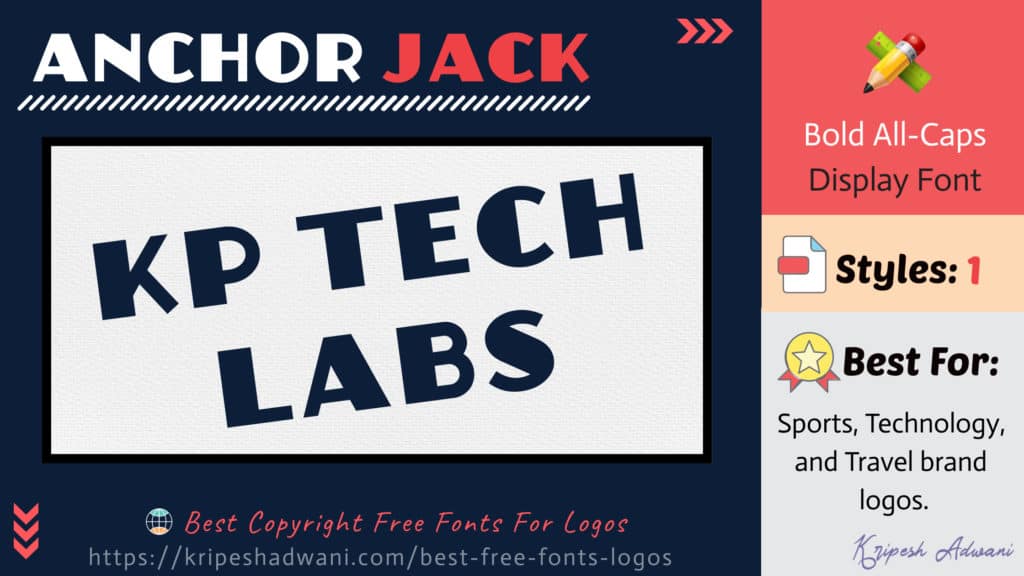
Anchor Jack is a bold all-caps display font inspired by Art Deco. This font would work really well with Sports, Technology, and Travel brand logos.
2. Orbitron
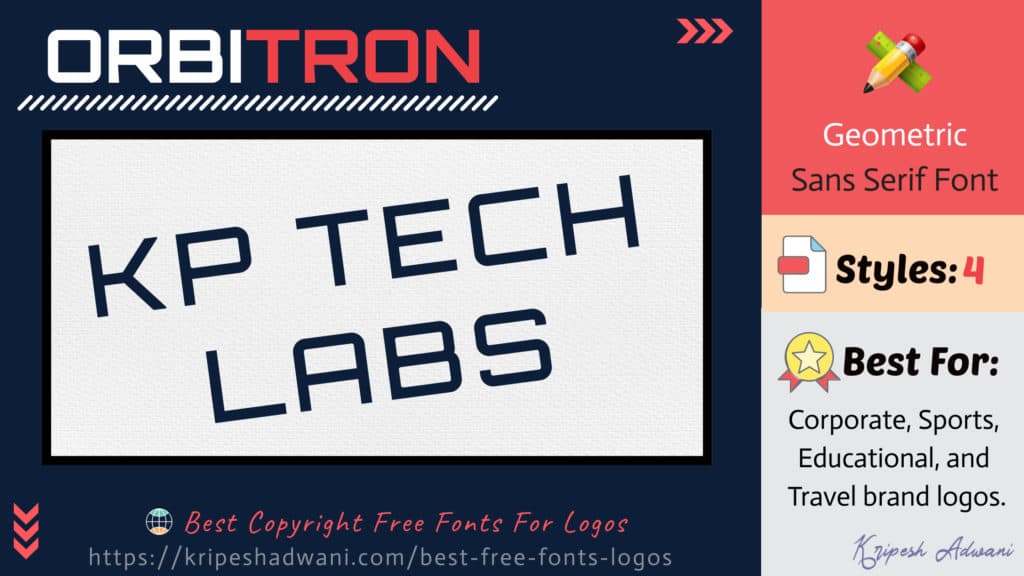
Orbitron is a geometric Sans Serif font with a futuristic vibe to it! It comes in four different weights, including light, medium, bold, and black!
This font is an excellent choice for Corporate, Education, Sports, and Travel brand logos.
3. Mohaw
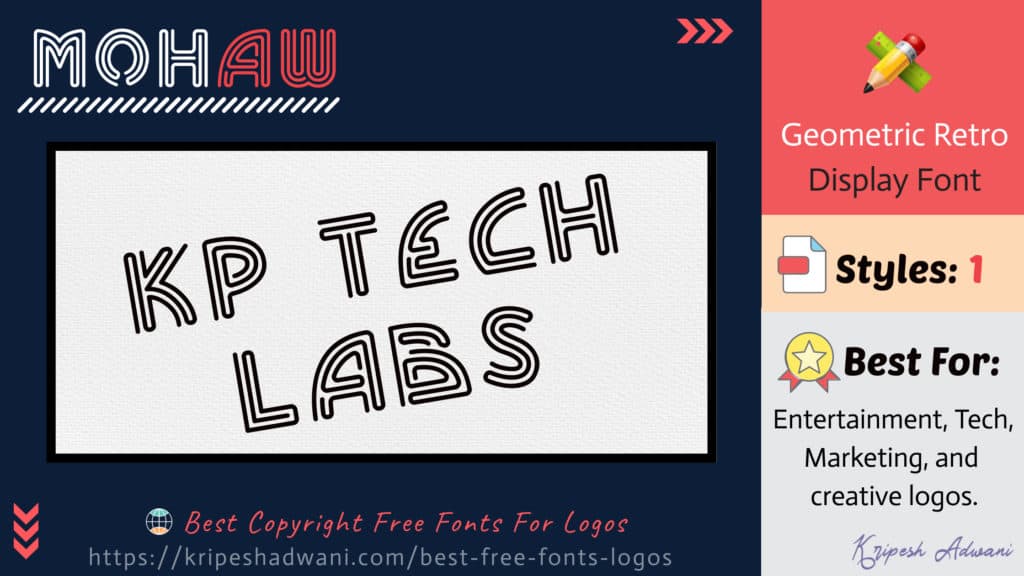
Mohaw is a geometric retro display font with smooth, flowing, straight lines inspired by the neon style. It is a super stylish font and can be a suitable option for Entertainment, Tech, Marketing, and similar creative logos.
4. Jaya Baru
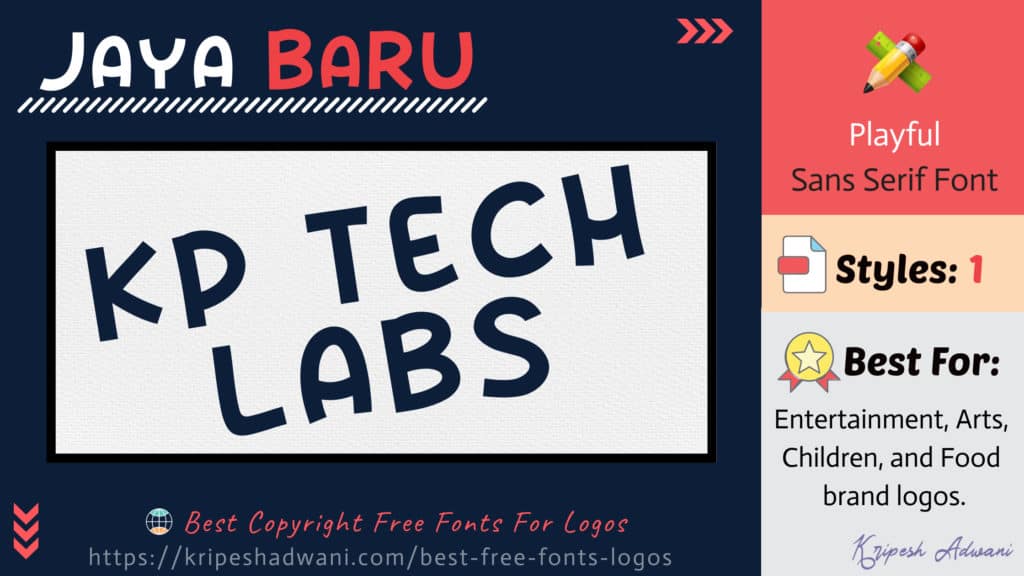
Jaya Baru is a playful and funny Sans Serif font. Its smooth curves give it an almost cartoonish look. This font would go really well with Entertainment, Arts, Children, and Food brand logos!
5. Tribeca
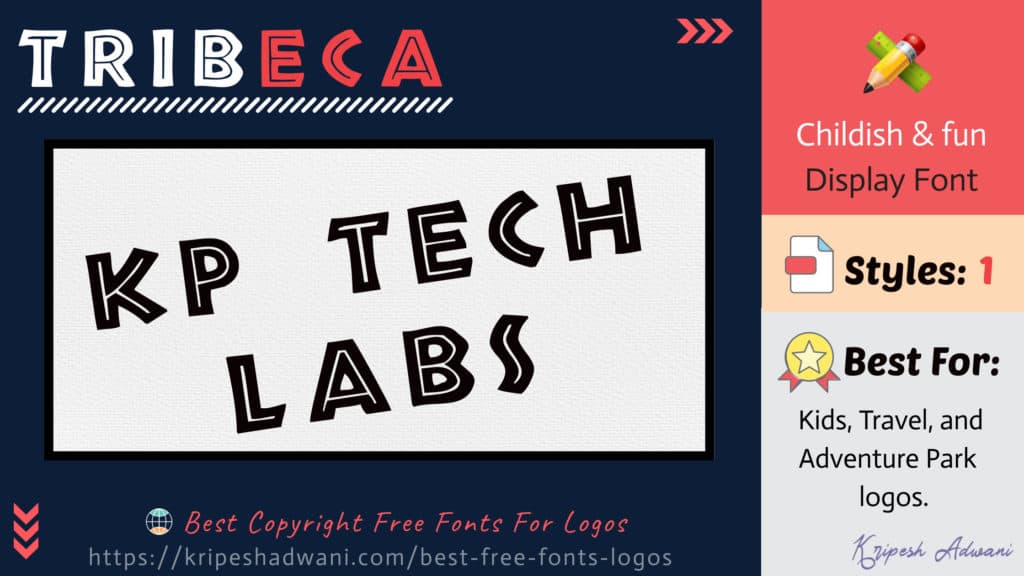
Tribeca is a childish and fun display font. It has bold white outlines, which give it a strong and confident vibe. It can be used on Kids, Travel, and Adventure Park logos.
6. Storm Gust
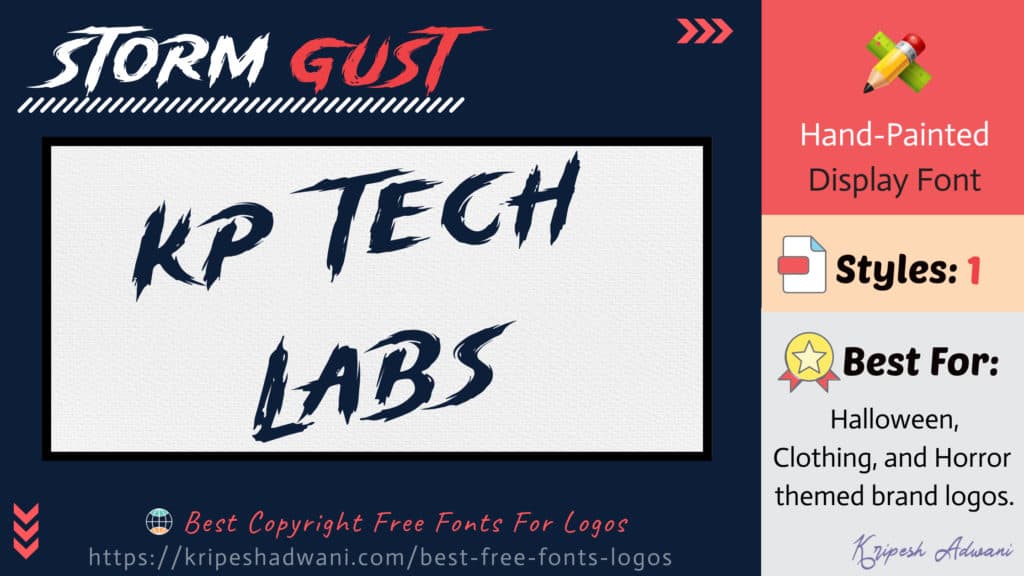
Storm gust is a horror-themed hand painted display font. Its rough strokes give it a bold and scary appearance. This font is great for Halloween, Clothing, and Horror-themed brand logos.
7. Isometretos
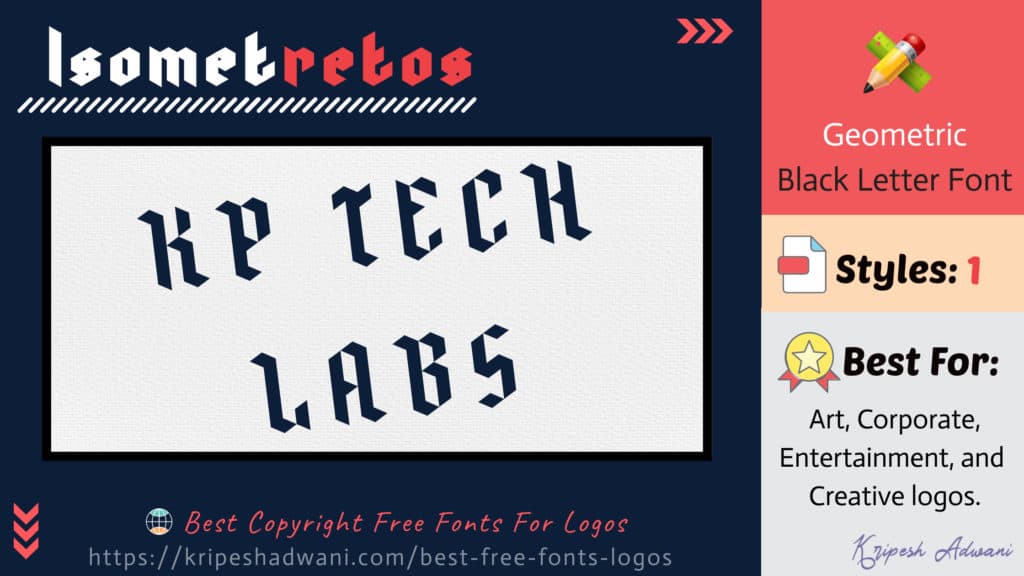
Isometretos is a geometric black-letter font which comprises triangles on a grid. It looks quite minimalistic and classy and comprises both upper and lowercase letters.
It can be used on Art, Corporate, Entertainment, and Creative logos.
8. Curely
Curely is a gorgeous all-caps script font in handwritten style. This font has a powerful girly feel and is best for Arts, Kids, and Fashion brand logos.
9. Luckiest Guy
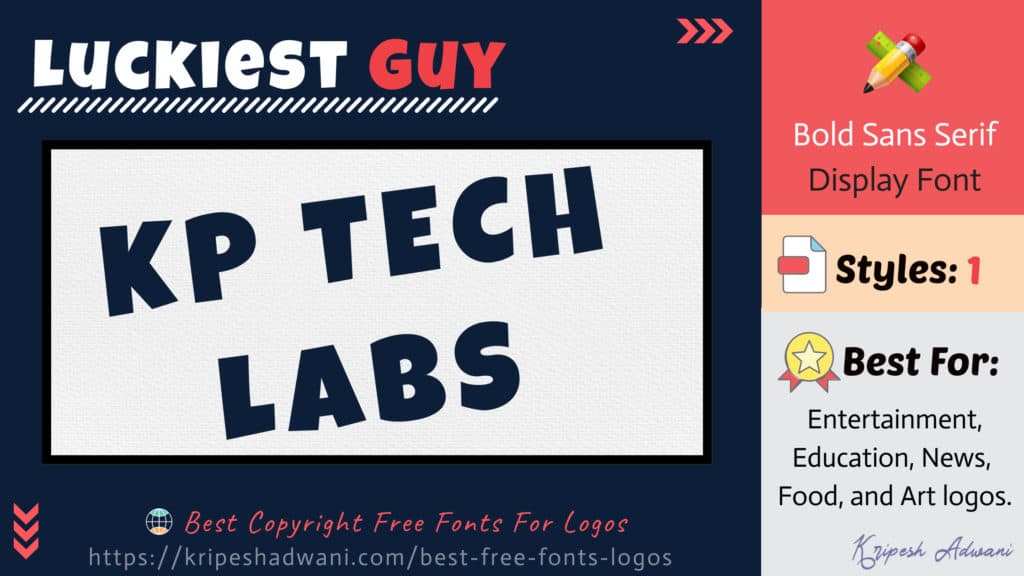
Luckiest Guy is a bold Sans Serif font with a friendly appeal. It is ideal for Entertainment, Education, News, Food, and Art logos.
10. Vanilla
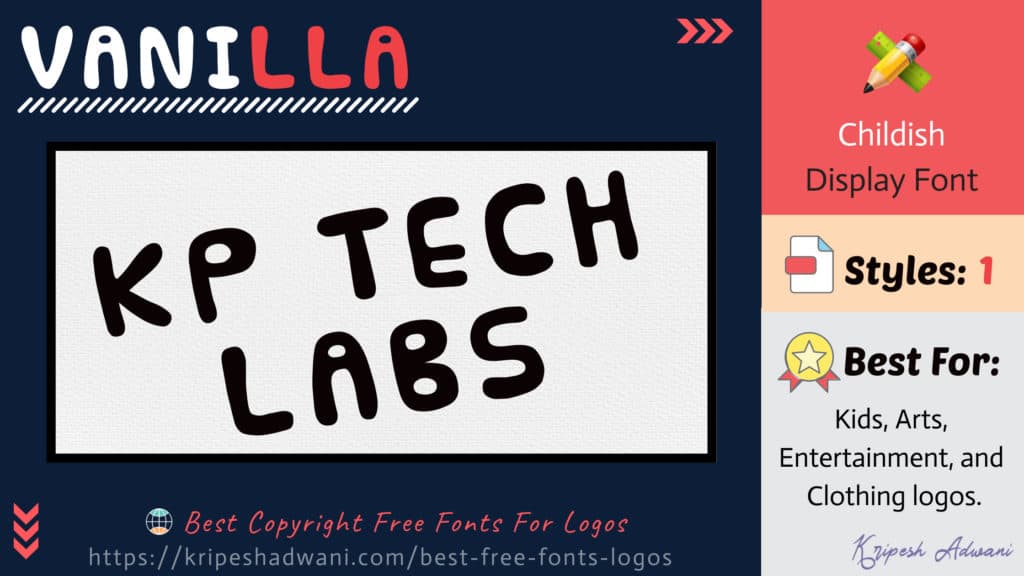
Vanilla is a cute and childish display font with smooth, wavy letters. It exudes a playful and carefree vibe associated with kids.
This font is best suited for Kids, Arts, Entertainment, and Clothing brand logos.
11. Capsaicin
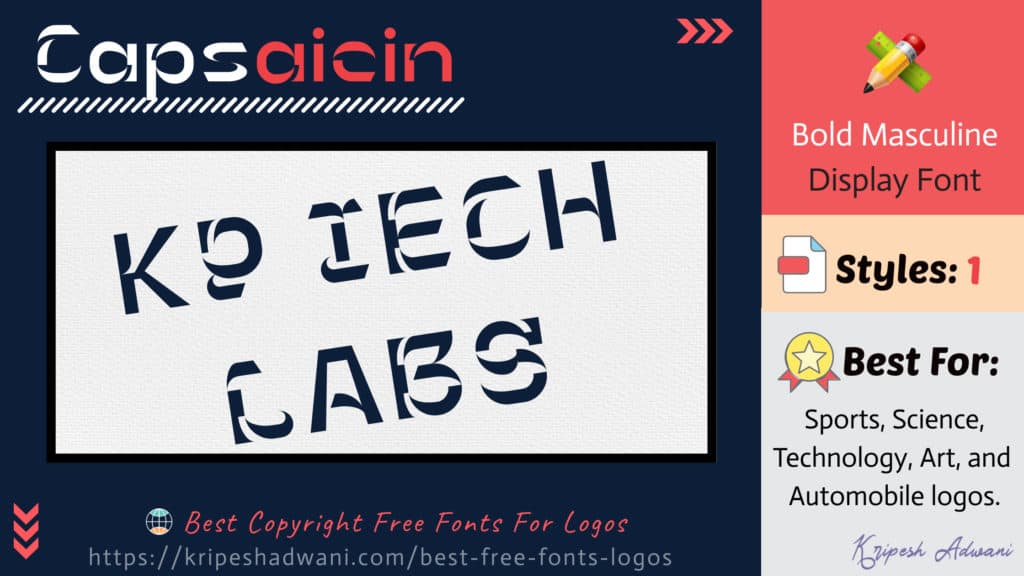
Capsaicin is a substance present in chili that causes a burning sensation on the skin. This font is a modern take on the same with sharp edges and a wild look! It is ideal for Sports, Science, Technology, Art, and Automobile logos.
- Designer: Micheal Xing
12. Strings
Color Tube is a beautiful handwritten font with smooth and seamless curves. This font is best for Fashion, Art, Handbags, and Jewelry brand logos.
13. Bitshift
Bitshift is a free font from the display category that revolves around gaming. This font is best suited for gaming and technology logos.
14. Butler
Butler is a Serif typeface with a high contrast and neat finish. This clean font is ideal for Education, Medical, Media, and Corporate logos.